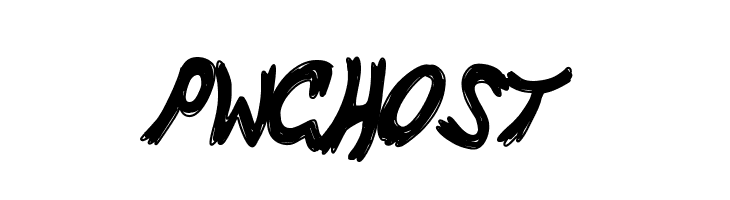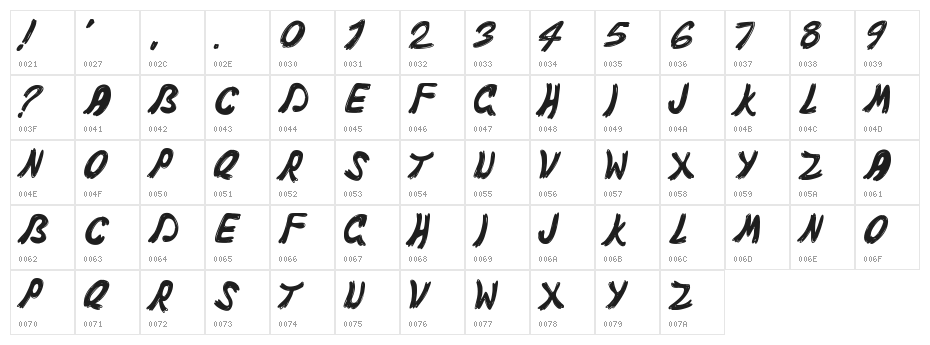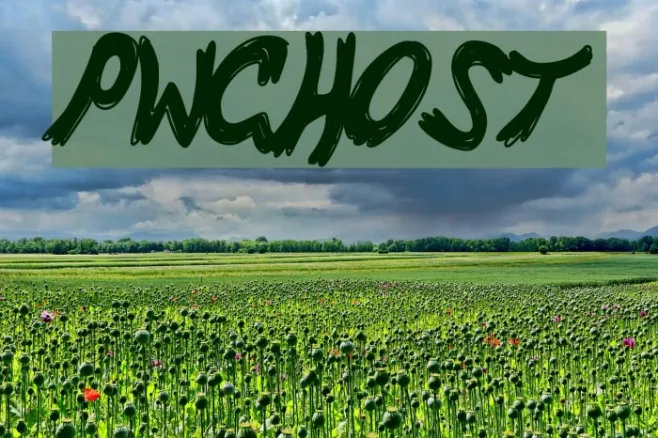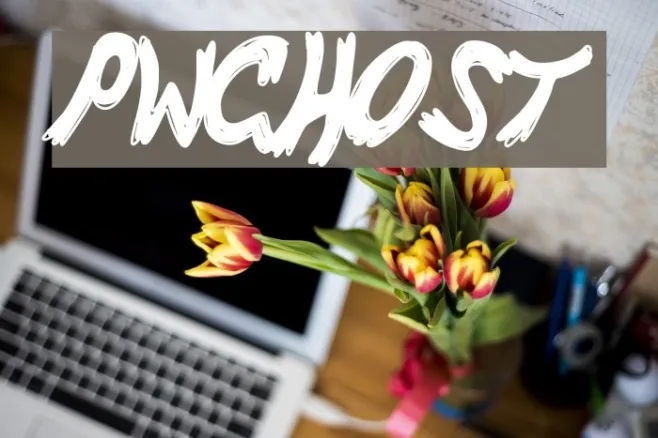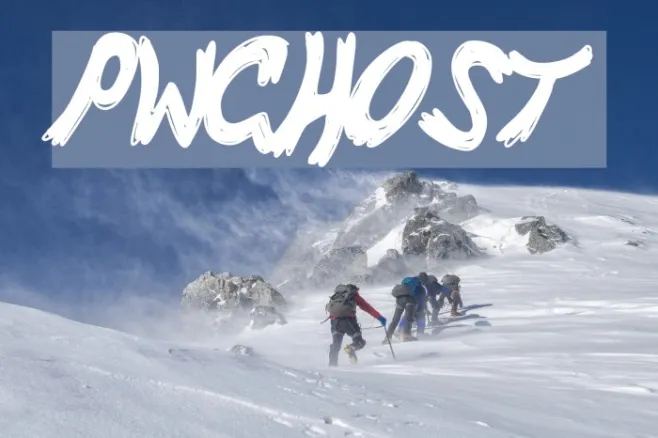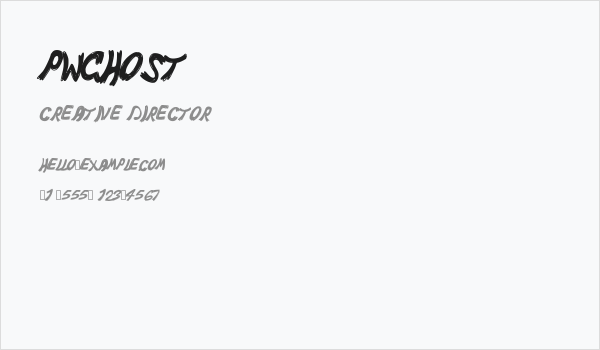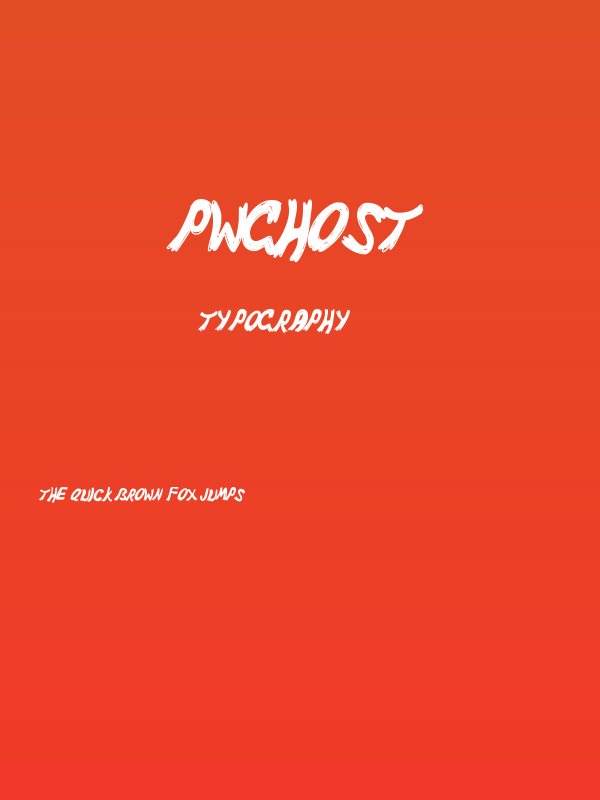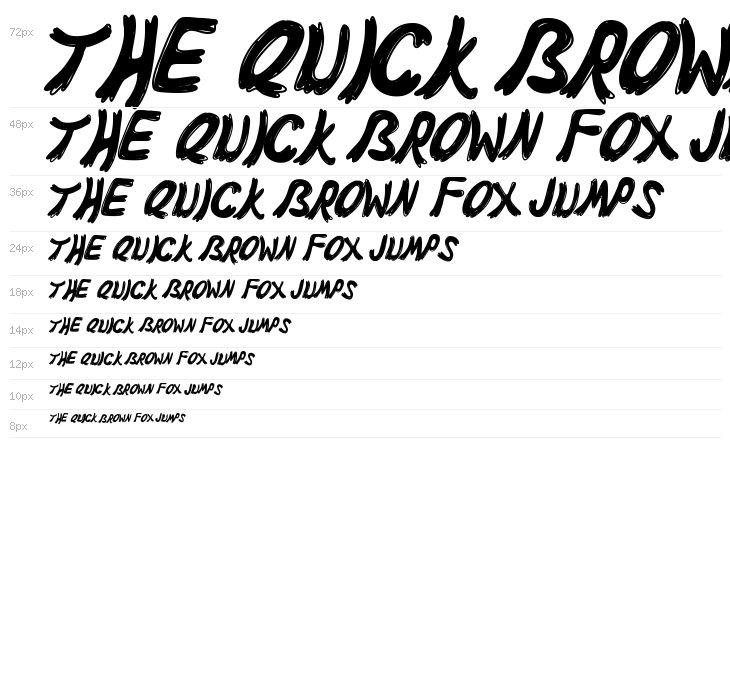
PWGhost Font
PWGhost Description
This font features a bold and expressive style with a brush-like appearance, giving it a dynamic and energetic feel. The characters are crafted with thick strokes and a slightly irregular form, adding a sense of movement and spontaneity. The uppercase and lowercase letters maintain a consistent flow, while the numbers and special characters complement the overall aesthetic. The font's design is reminiscent of hand-painted signage, making it ideal for projects that require a personal and artistic touch.
| Proposed Projects | Perfect for artistic posters, creative branding, event invitations, and eye-catching headlines. |